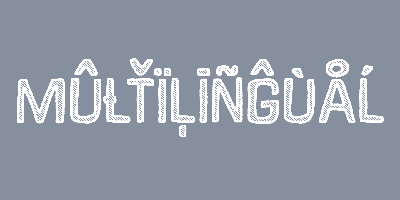
Add an international touch and global appeal to your designs with Foreign Language Font Free Download. This versatile typeface features clean, legible characters, making it perfect for multilingual projects, foreign language content, global branding, and international marketing materials. Foreign Language Font Free Download ensures clarity and readability across different scripts, bringing cultural authenticity and sophistication to your creative work.
The adaptable and straightforward design of Foreign Language Font makes it suitable for both formal and casual use, whether you're creating business documents, websites, product packaging, or educational content in multiple languages.